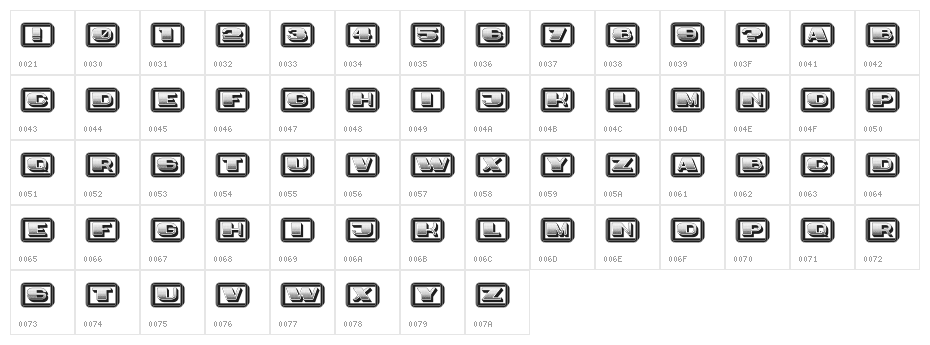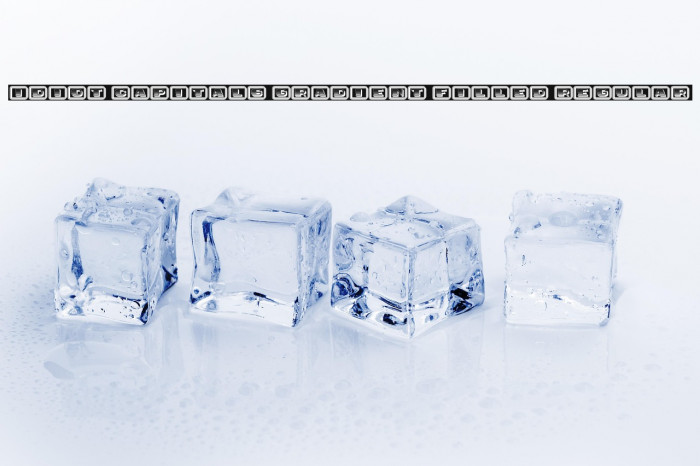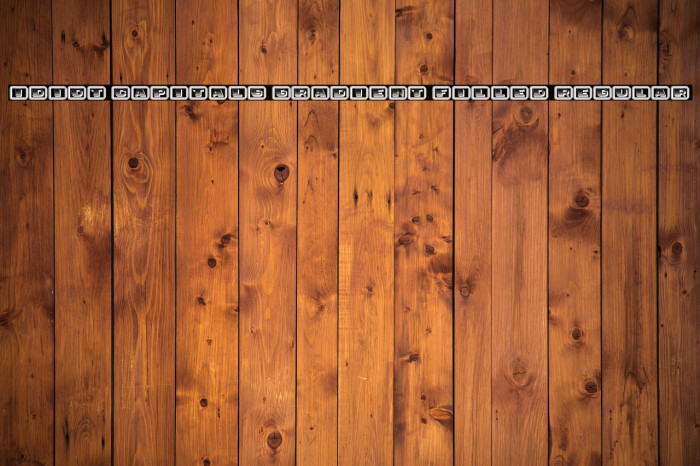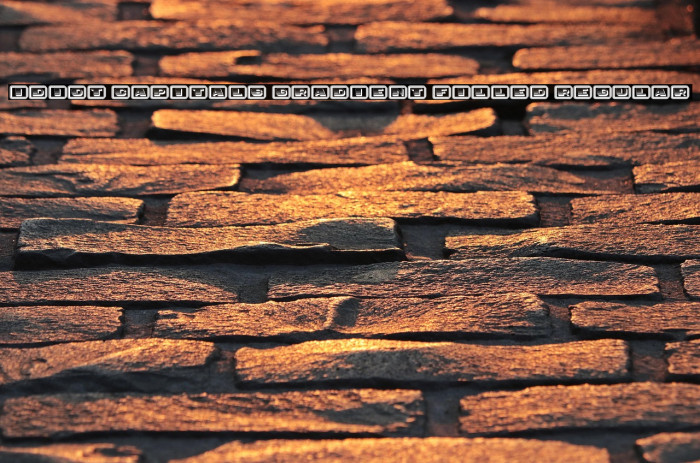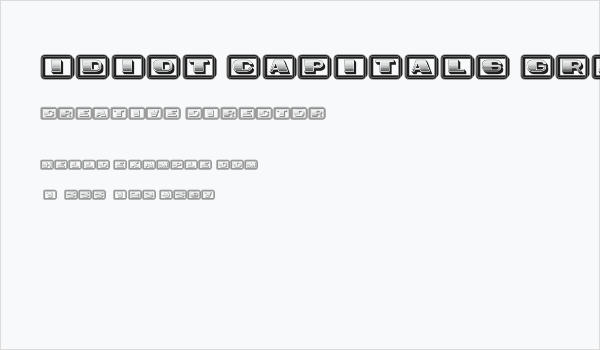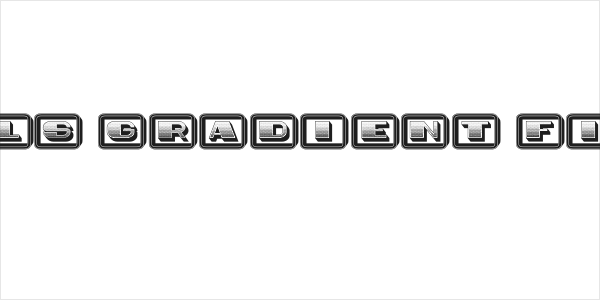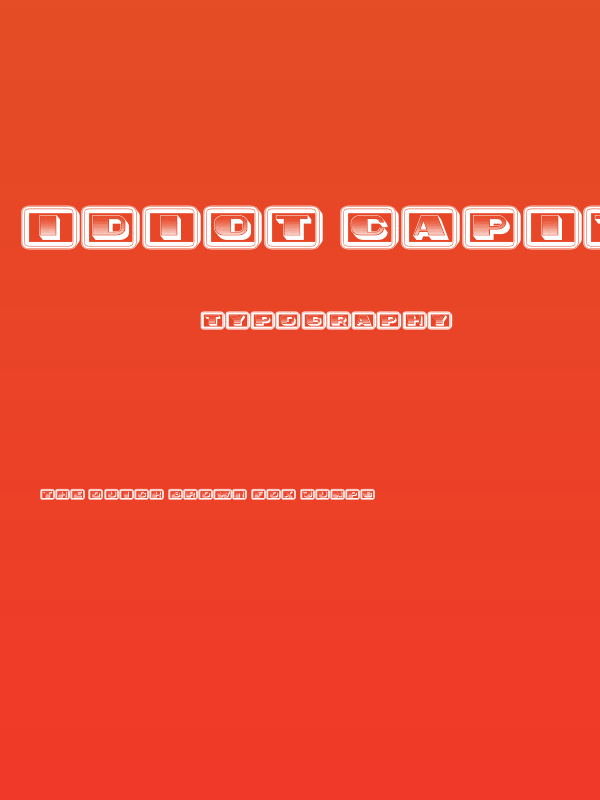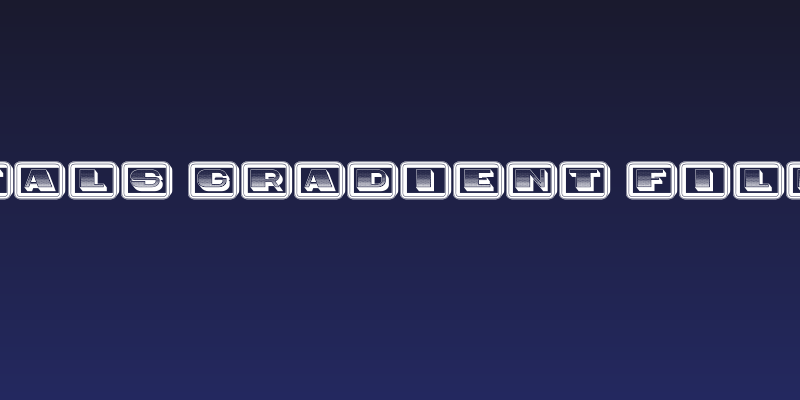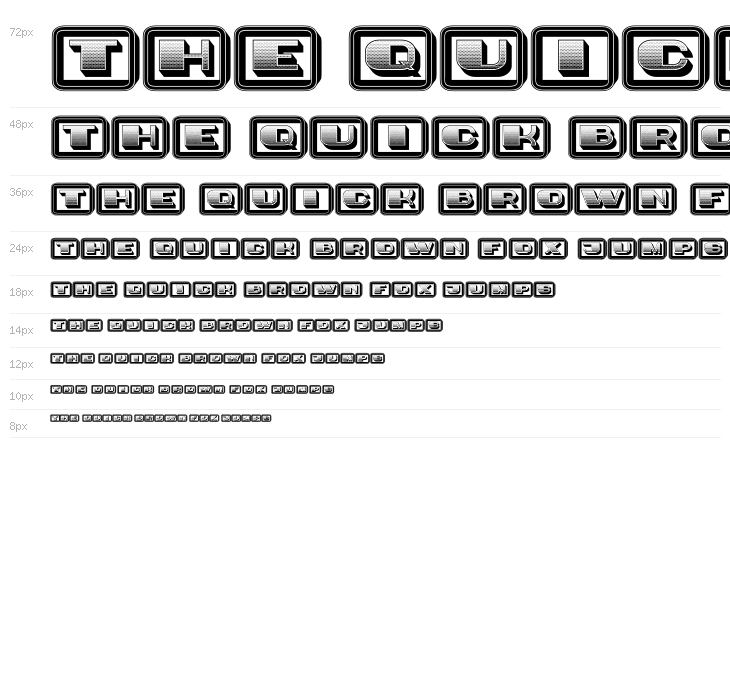
Idiot Capitals Gradient Filled Regular Font
Idiot Capitals Gradient Filled Regular Description
This font features a bold, three-dimensional style with a gradient fill that gives each character a metallic appearance. The letters are encased in a rectangular border, enhancing the futuristic and industrial feel. The gradient effect provides a sense of depth, making the characters appear as if they are embossed or engraved. The font is highly stylized, with a strong emphasis on geometric shapes and symmetry. Each character is distinct, with sharp edges and clean lines, contributing to a modern and dynamic aesthetic. The overall design is eye-catching and suitable for projects that require a bold statement.
| Proposed Projects | Ideal for video game titles, tech-themed posters, futuristic branding, or any project needing a strong, modern impact. |